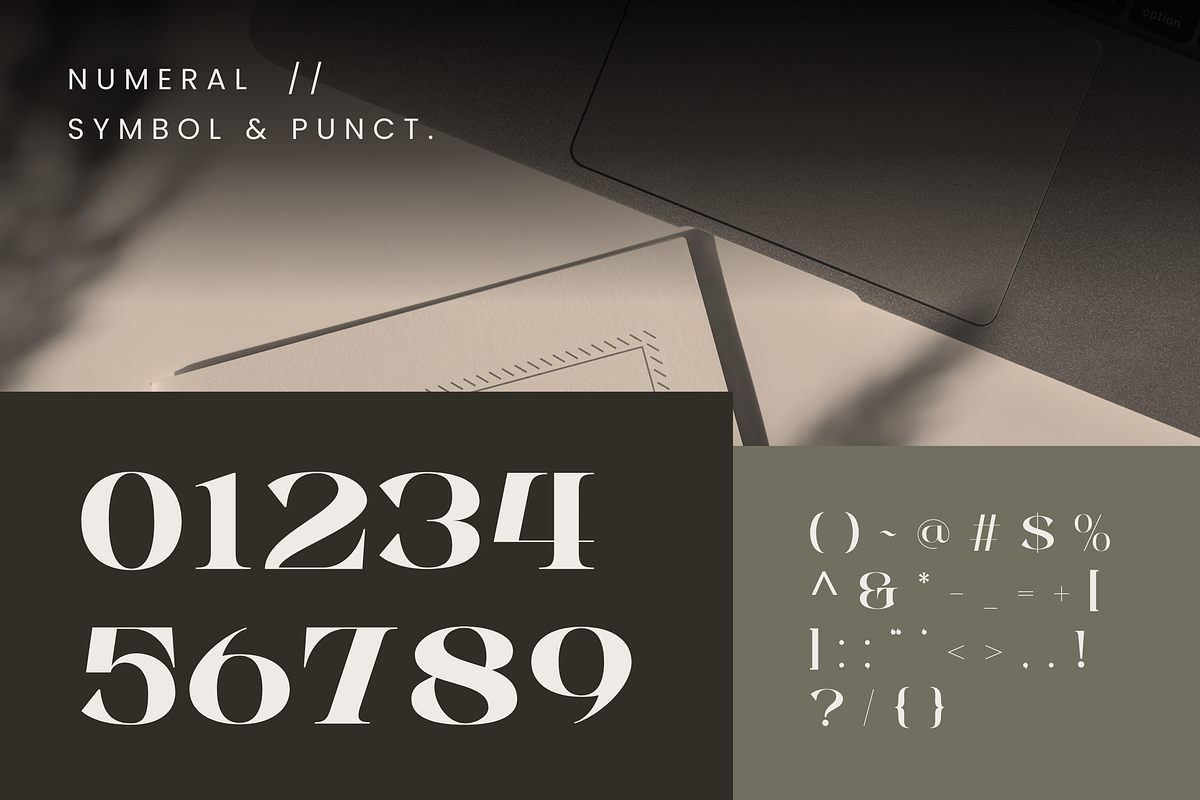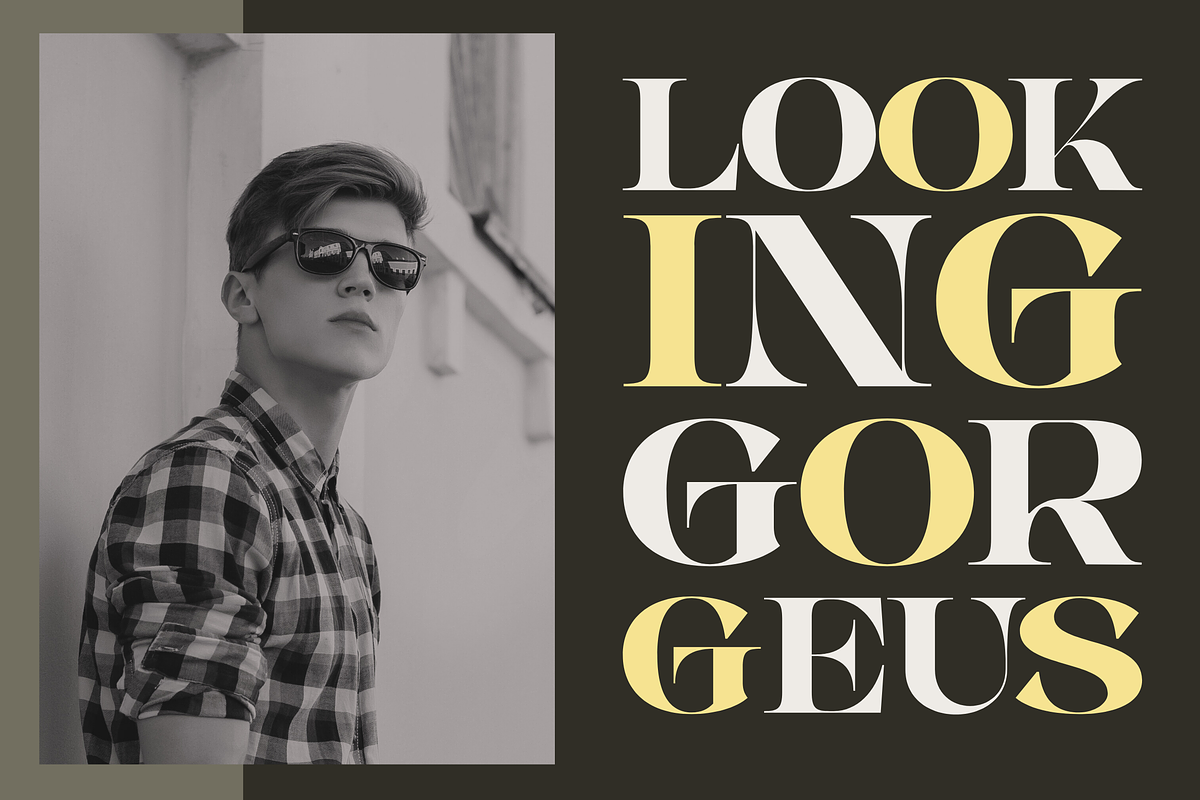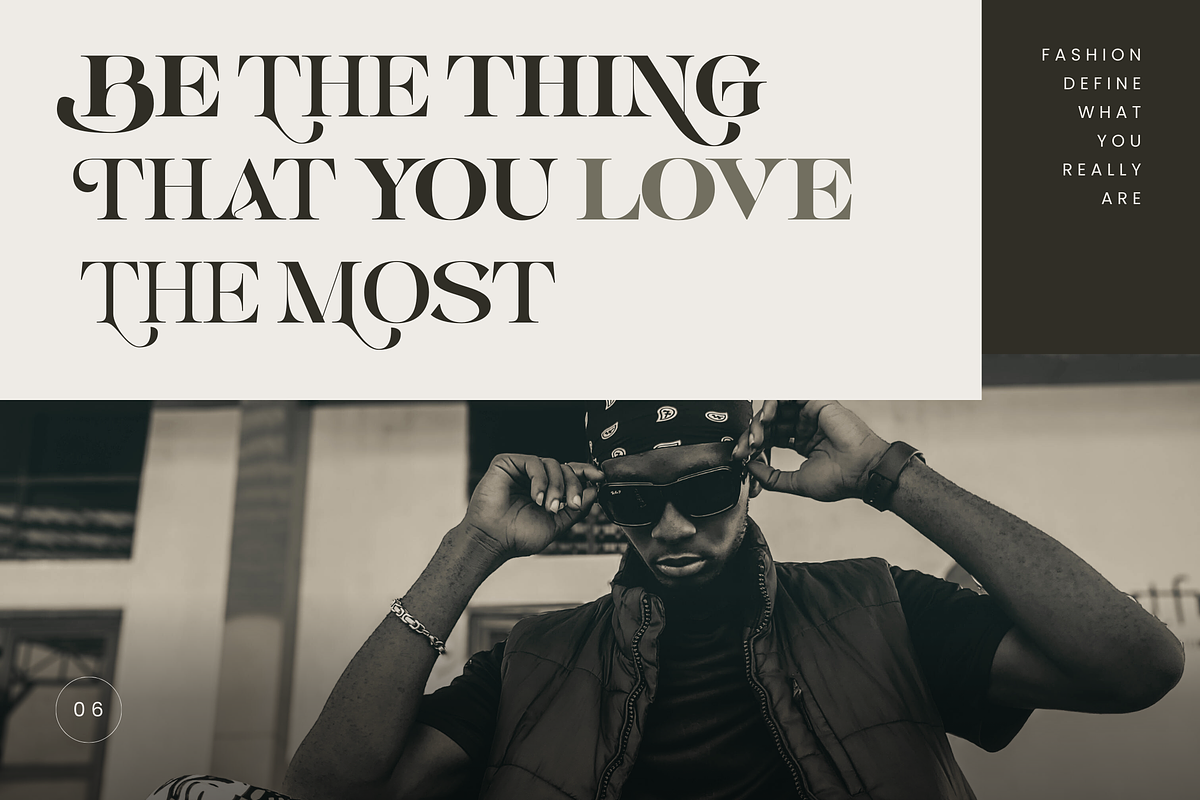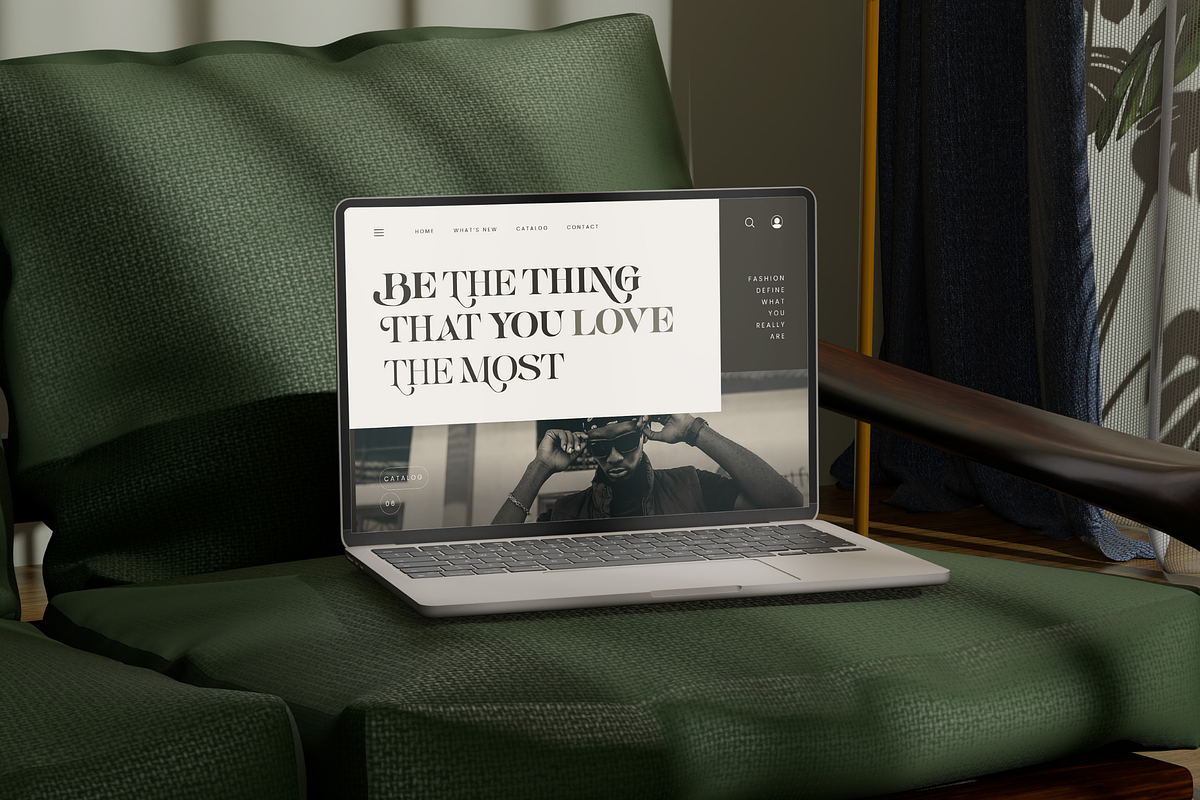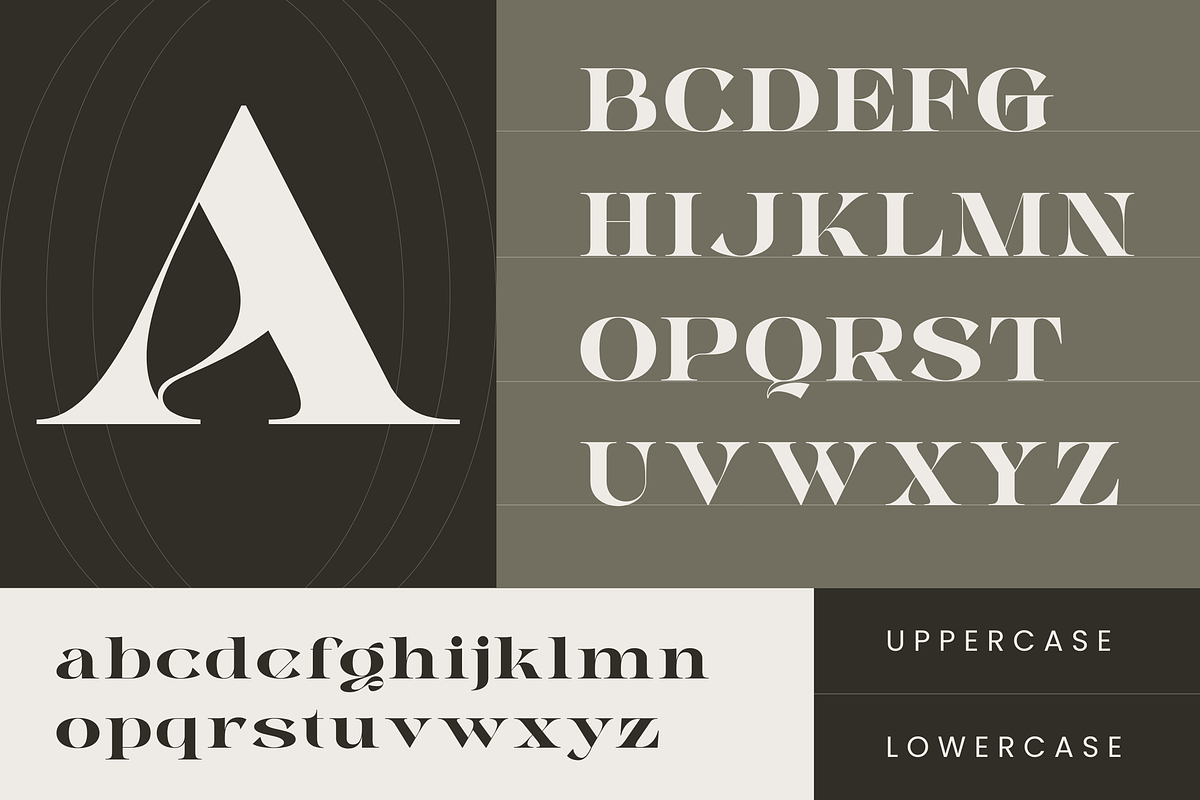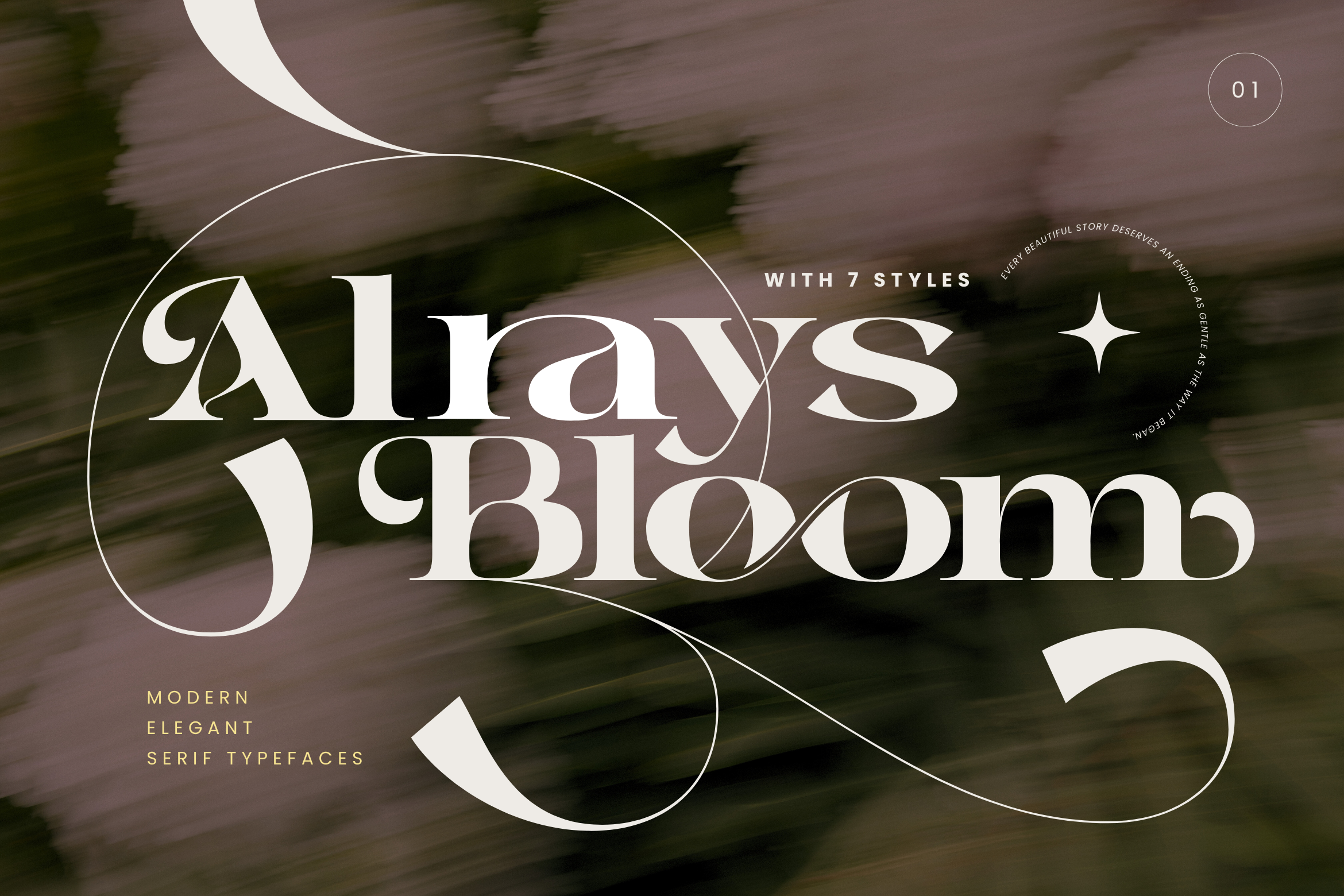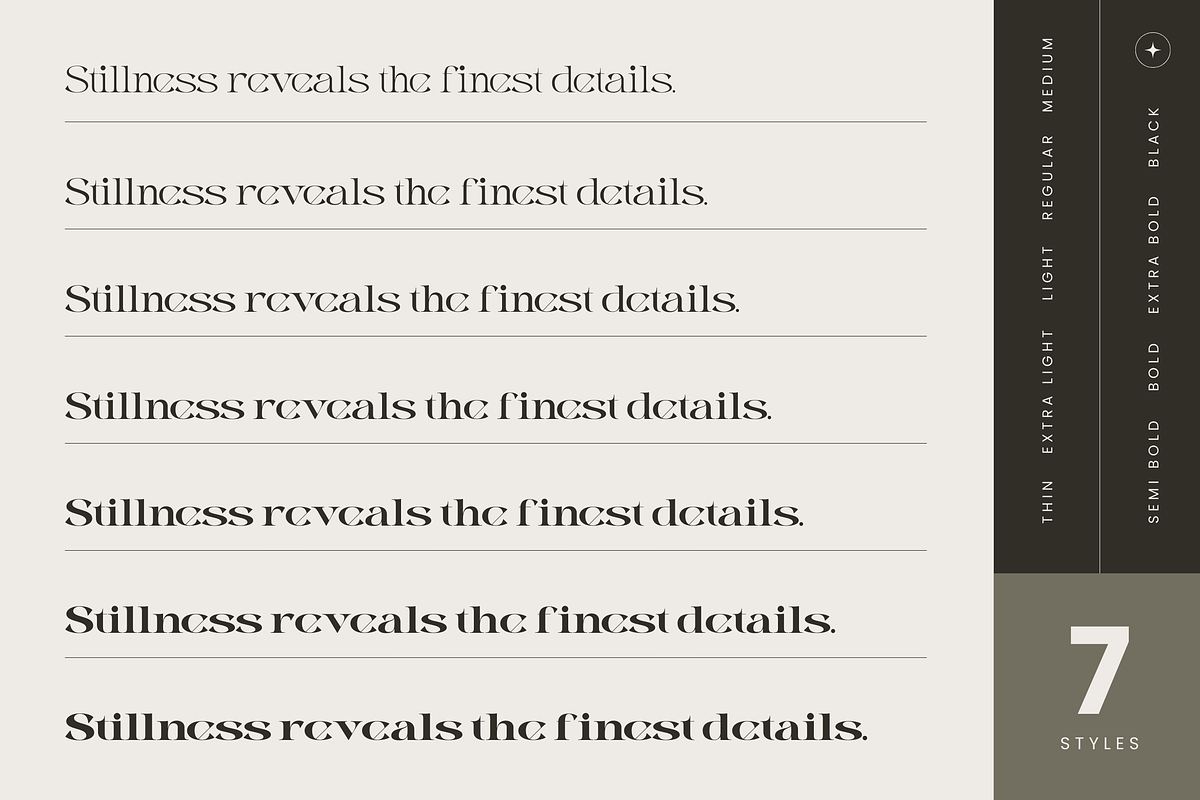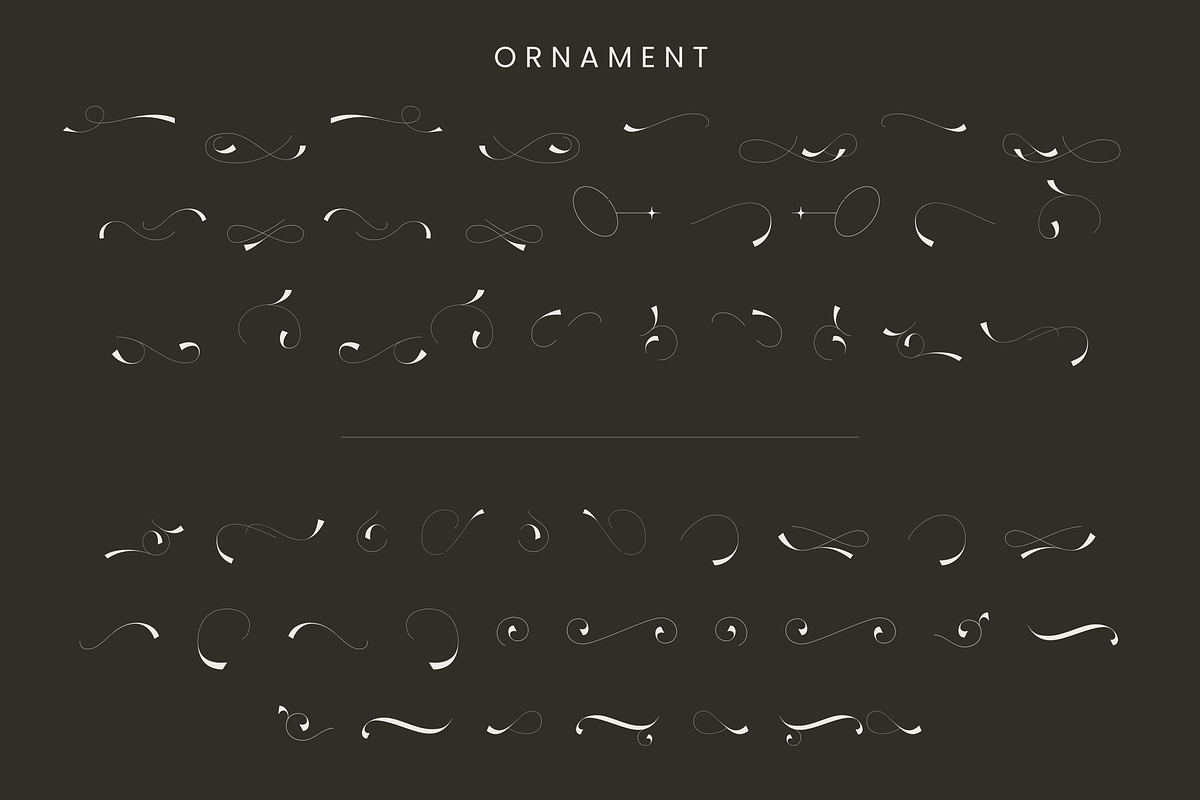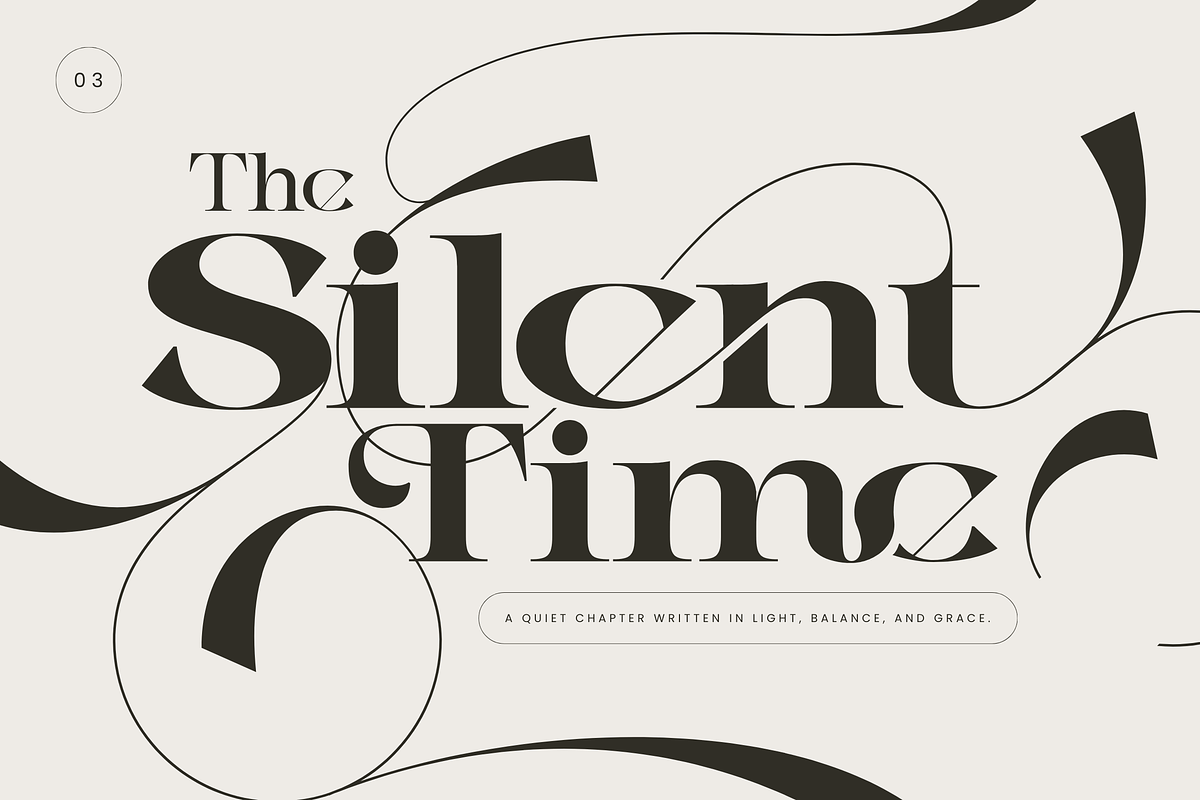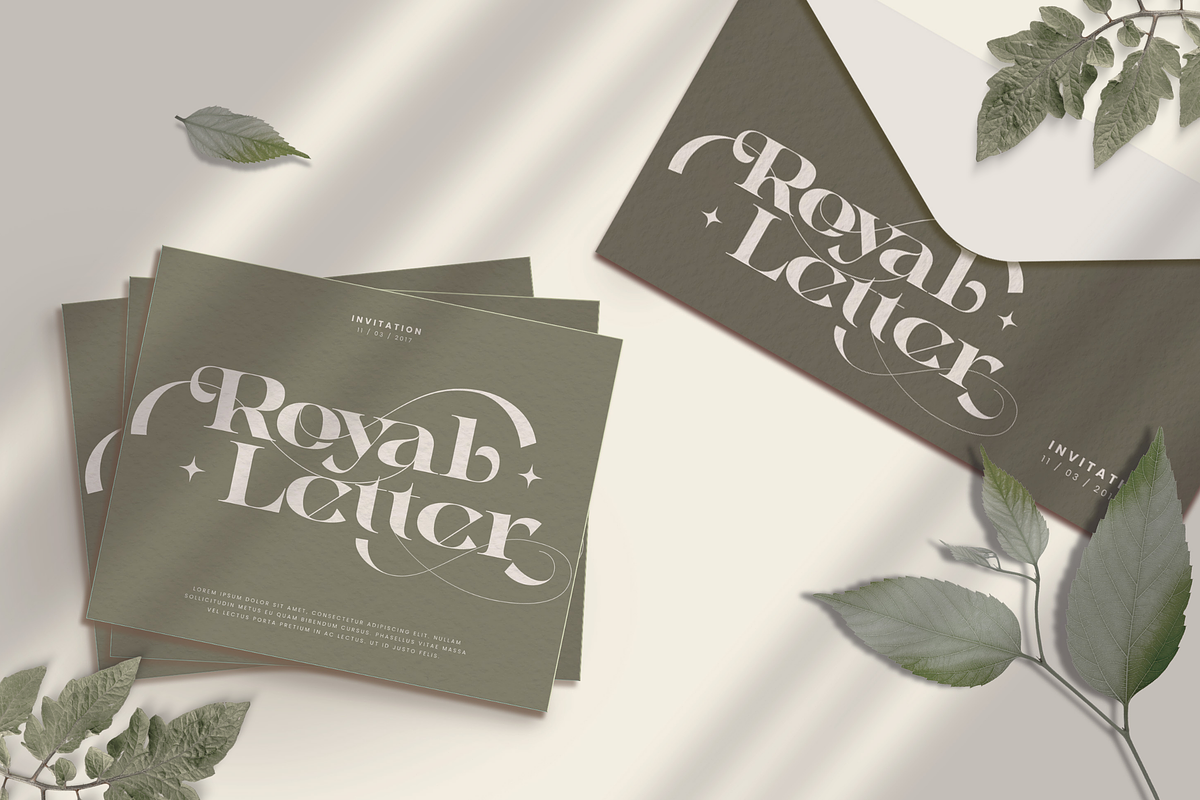
Alrays Bloom - Luxury Logo Font
Alrays Bloom is a luxury modern logo font designed to bring elegance and sophistication to premium branding. Featuring rich ligatures, stylish ornaments, and beautiful alternates, this typeface creates a refined and graceful look for logos, wedding designs, beauty brands, and high-end promotions. Its flowing curves and decorative details make every word feel exclusive, perfect for projects that demand a touch of luxury, romance, and timeless elegance.